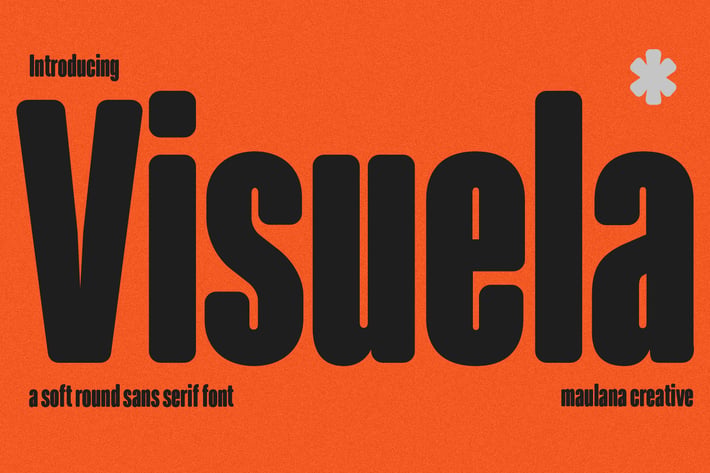
Visuela Sans Display Font
Visuela is a modern clean soft round sans serif font. With bold stroke, fun character. To give you an extra creative work. Visuela font support multilingual more than 100+ language. This font is good for logo design, Social media, Movie Titles, Books Titles, a short text even a long text letter and good for your secondary text font with sans or serif. Make a stunning work with Visuela font.